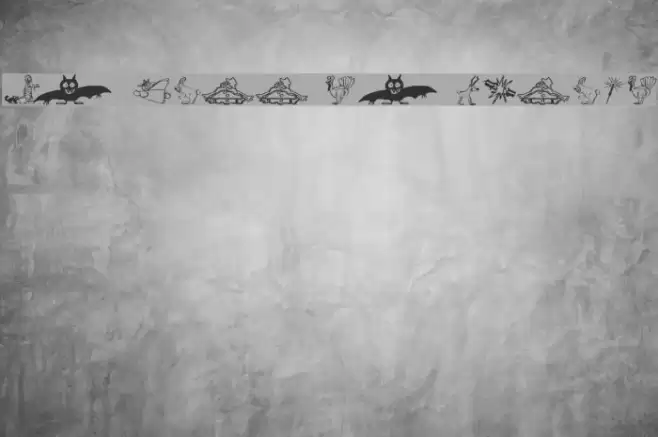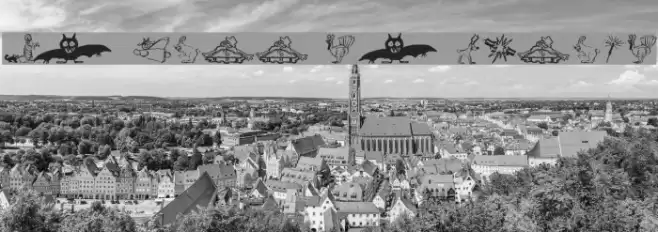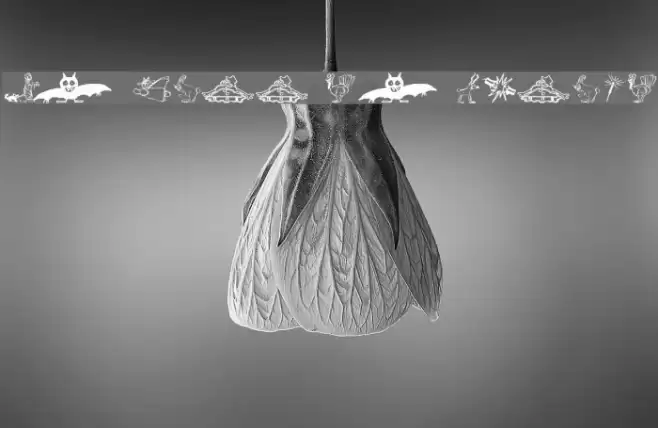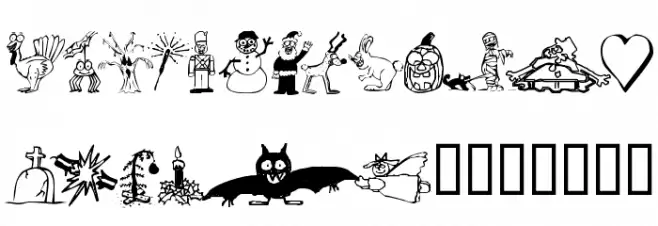
KR Silly Art Holiday Font
KR Silly Art Holiday Description
This is a whimsical and playful decorative font featuring a variety of holiday-themed illustrations. Each character is represented by a unique and detailed drawing, including elements like turkeys, snowmen, bats, and other festive symbols. The style is cartoonish and fun, making it ideal for projects that require a lighthearted and festive touch. The illustrations are bold and clear, ensuring they stand out in any design. This font is perfect for adding a touch of holiday cheer to your creative projects.
A playful decorative font with holiday-themed illustrations from Uncategorized fonts.
- Proposed Projects: Ideal for holiday cards, festive posters, children's party invitations, and seasonal decorations.
- Use Case: Logos, Headlines, Decorative elements